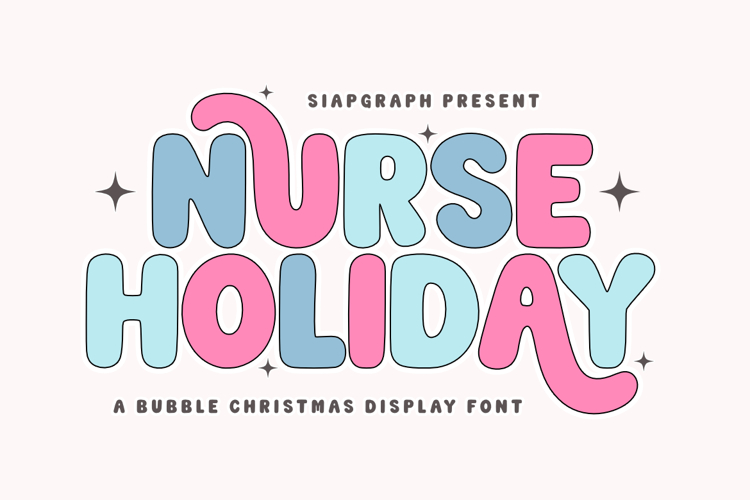
Nurse Holiday - Cute Retro Bubble Font
Nurse Holiday is a bubbly, cheerful, and groovy display font inspired by the playful, candy-colored aesthetics of a retro Christmas, specifically tailored for celebrating our healthcare heroes during the festive season. Its smooth, rounded forms and thick lines give it an incredibly friendly and impactful presence.
This font is a must-have for creators targeting the Healthcare/Nurse, Christmas, and Holiday markets in craft, POD (Print On Demand), and DIY. Its bold structure is perfect for high-visibility products and digital cutting machines.
Perfect for: crafting SVG designs, custom holiday t-shirts for hospital staff, nurse Christmas party invitations, personalized medical-themed ornaments, festive mug designs, appreciation gifts, winter-themed apparel, and cheerful social media graphics for the holidays.
Great for holiday themes such as Christmas, Nurse Appreciation Week, New Year's, and any Seasonal Celebration where you want to combine festive cheer with recognition for nurses and healthcare workers!